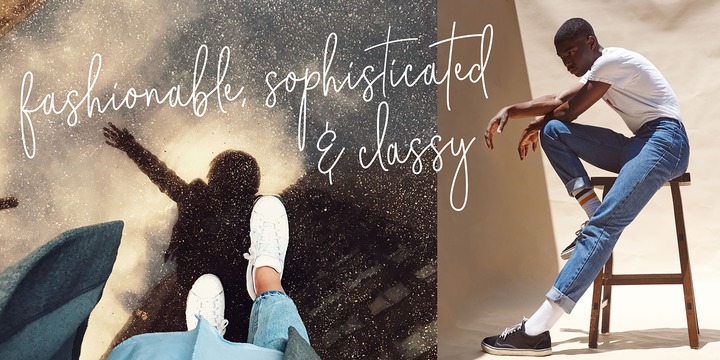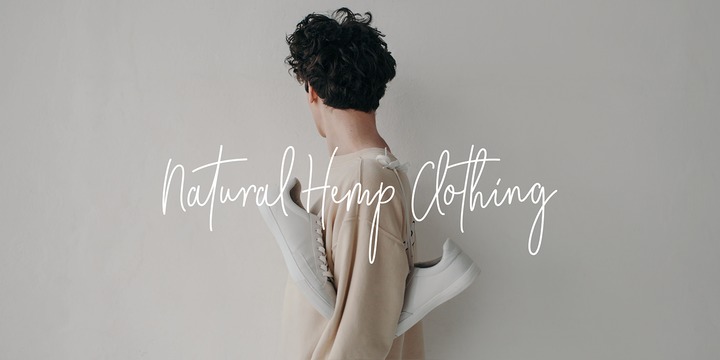
Echoes Of Love Font
Echoes of Love – Modern Display Handwritten Font. Echoes of Love is a modern and simple font, best used as a display for headings, logos, branding, magazines, product packaging and invitations.